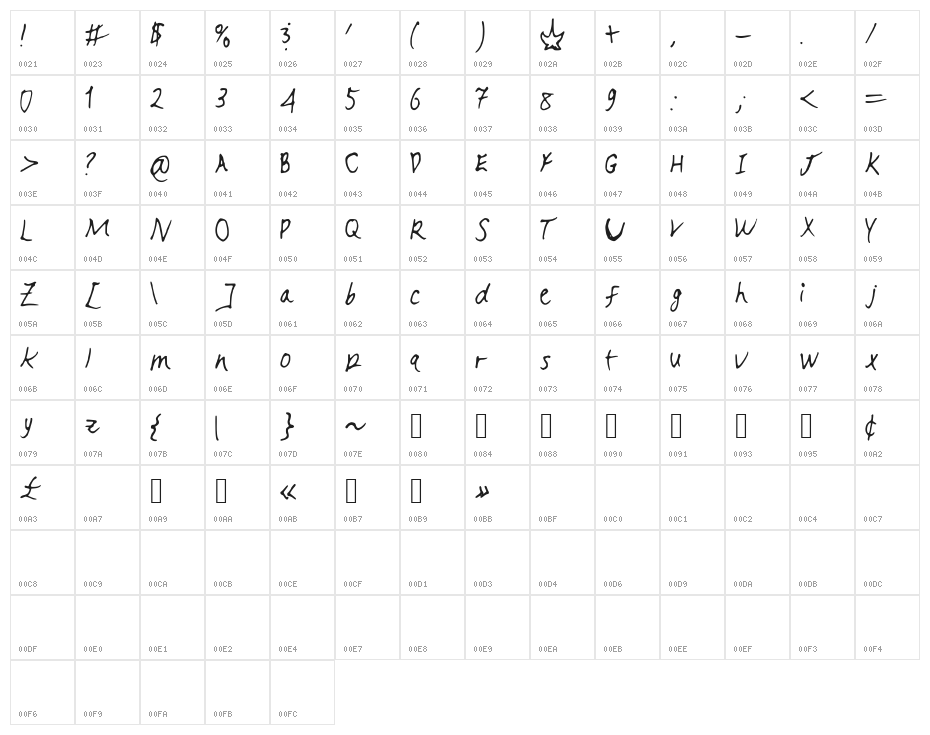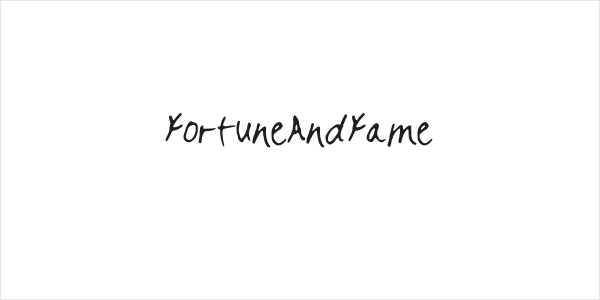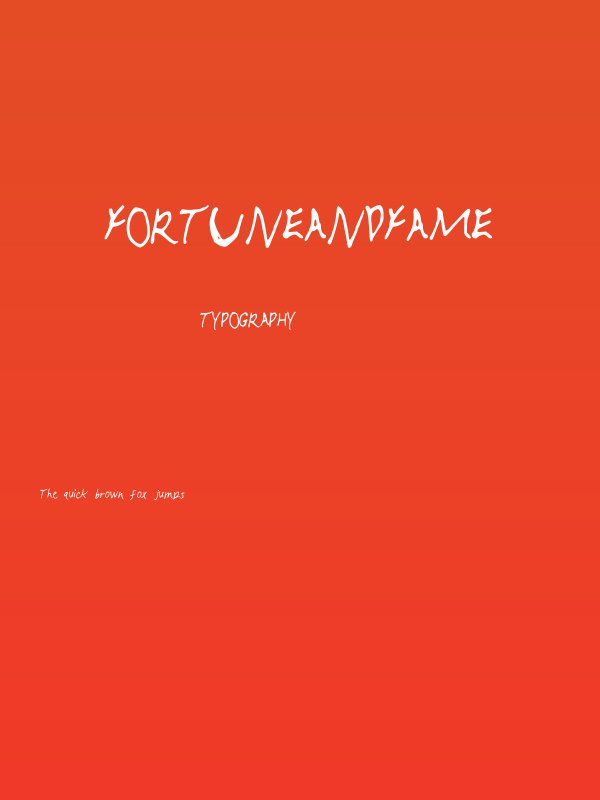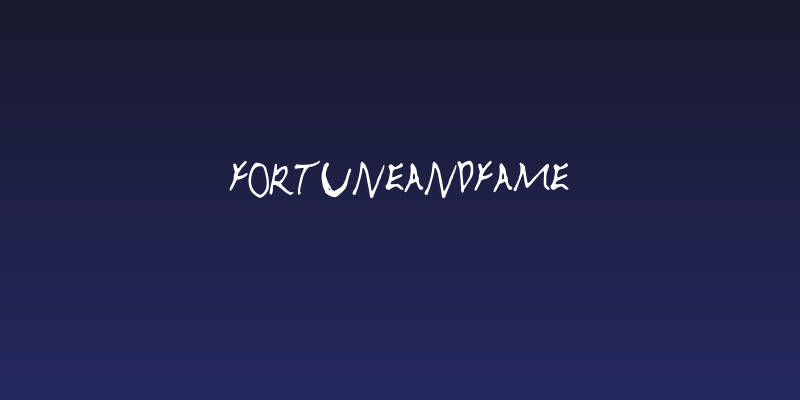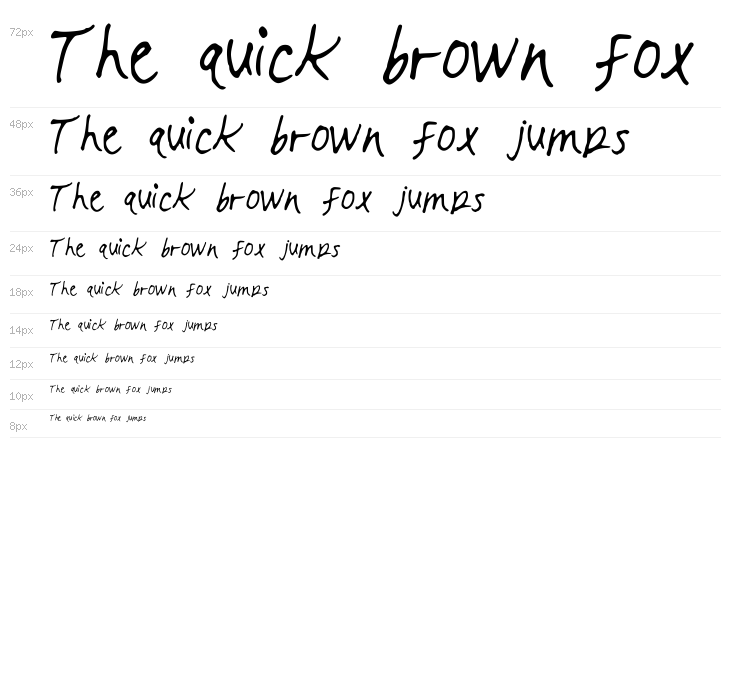
FortuneAndFame Font
FortuneAndFame Description
This font exudes a playful and artistic vibe, characterized by its handwritten style that mimics the fluidity and spontaneity of natural handwriting. The letters are slightly irregular, adding to the charm and authenticity of the design. Uppercase and lowercase letters maintain a consistent style, with a casual and informal appearance. The numerals and special characters follow the same aesthetic, ensuring a cohesive look across all text elements. This font is perfect for projects that require a personal touch, such as invitations, greeting cards, or creative branding materials.
| Overall Style | Casual, Artistic |
| Use Case | Headlines, Creative projects, Personal branding |
| Proposed Projects | Ideal for invitations, greeting cards, personal branding, and creative projects. |